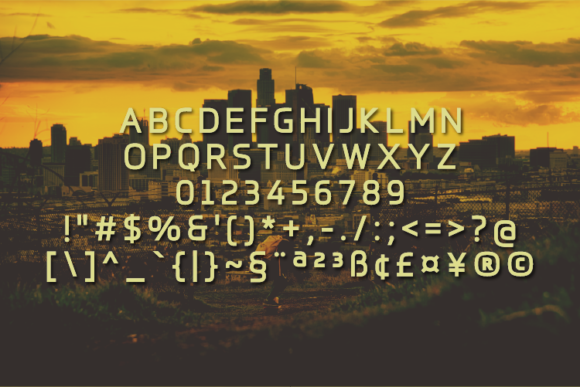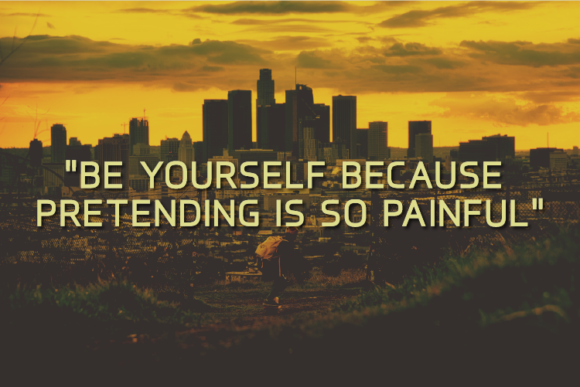
Balenon Font: Elevate Your Designs with a Minimal and Neat Sans Serif
Balenon is a modern sans serif font that has been making waves in the design community. Its minimal and neat aesthetic makes it an incredibly versatile choice for a wide range of projects. Whether you’re a designer, crafter, or simply someone looking to add a touch of sophistication to your creative endeavors, Balenon is definitely worth checking out.
The Characteristics of Balenon Font
Balenon is a clean and simple sans serif font that exudes a sense of elegance and refinement. Its minimalist design makes it easy to read and understand, while its neat lines and curves give it a touch of sophistication. The font is highly legible, even at small sizes, making it perfect for use in a variety of applications, from digital screens to print materials.
The Benefits of Using Balenon Font
So why choose Balenon for your design projects? Here are just a few benefits of using this versatile font:
- Versatility: Balenon can be used in a wide range of projects, from logos and branding materials to websites, magazines, and more.
- Legibility: The font is highly legible, even at small sizes, making it perfect for use in digital screens, print materials, and more.
- Elegance: Balenon’s minimalist design gives it a touch of sophistication and elegance, making it perfect for high-end brands and luxury products.
- Easy to Pair: Balenon can be easily paired with other fonts to create a unique and cohesive look.
How to Use Balenon Font in Your Designs
So how can you use Balenon in your design projects? Here are a few ideas to get you started:
- Logos and Branding: Use Balenon as a logo font to create a clean and sophisticated brand identity.
- Websites: Use Balenon as a body font or heading font to add a touch of elegance to your website.
- Print Materials: Use Balenon in print materials such as brochures, flyers, and business cards to create a professional and polished look.
- Social Media: Use Balenon in social media graphics and posts to add a touch of sophistication to your online presence.
Tips for Pairing Balenon with Other Fonts
While Balenon is a beautiful font on its own, it can also be paired with other fonts to create a unique and cohesive look. Here are a few tips for pairing Balenon with other fonts:
- Contrast: Pair Balenon with a font that has a lot of contrast, such as a bold serif font or a script font.
- Similarity: Pair Balenon with a font that has a similar feel or aesthetic, such as another sans serif font.
- Hierarchy: Use Balenon as a heading font and pair it with a simpler font for body text to create a clear hierarchy.
Balenon is a versatile and elegant sans serif font that can be used in a wide range of design projects. Its minimal and neat aesthetic makes it perfect for use in logos, branding materials, websites, print materials, and more. With its high legibility and ease of use, Balenon is a great choice for designers and crafters looking to add a touch of sophistication to their creative endeavors.